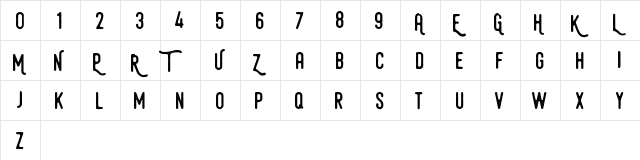
Hamurz Free Version Regular
Design Context for Hamurz Free Version Typeface
Hamurz Free Version offers clean, dependable letterforms without strong stylistic allegiance, making it a practical choice for designers who need flexibility.